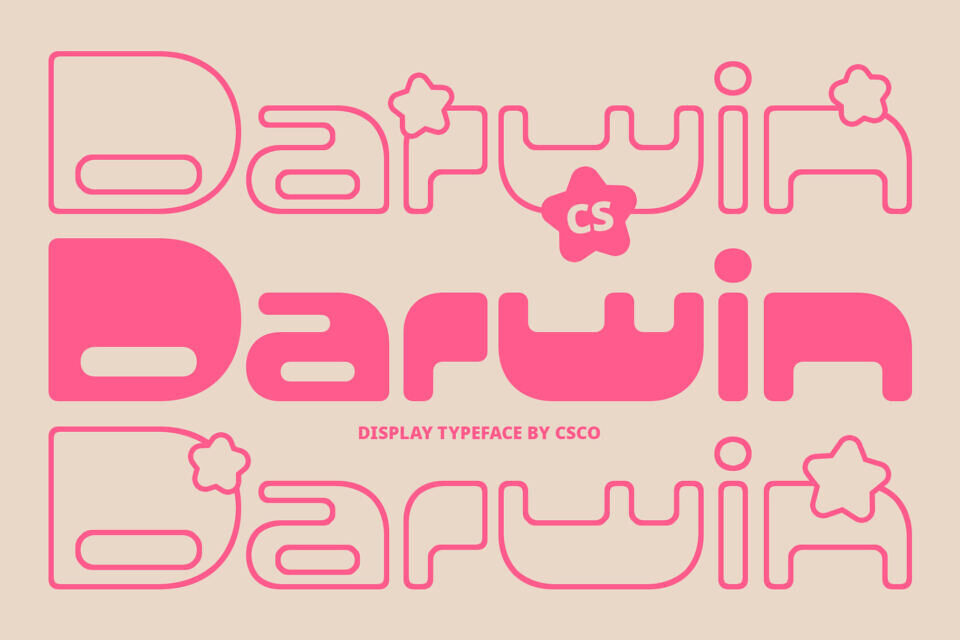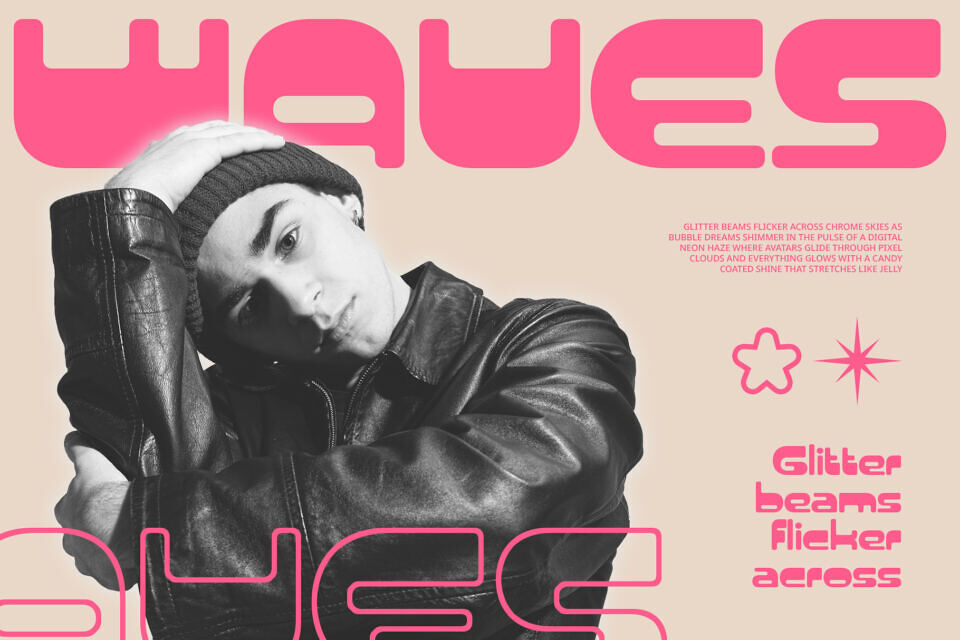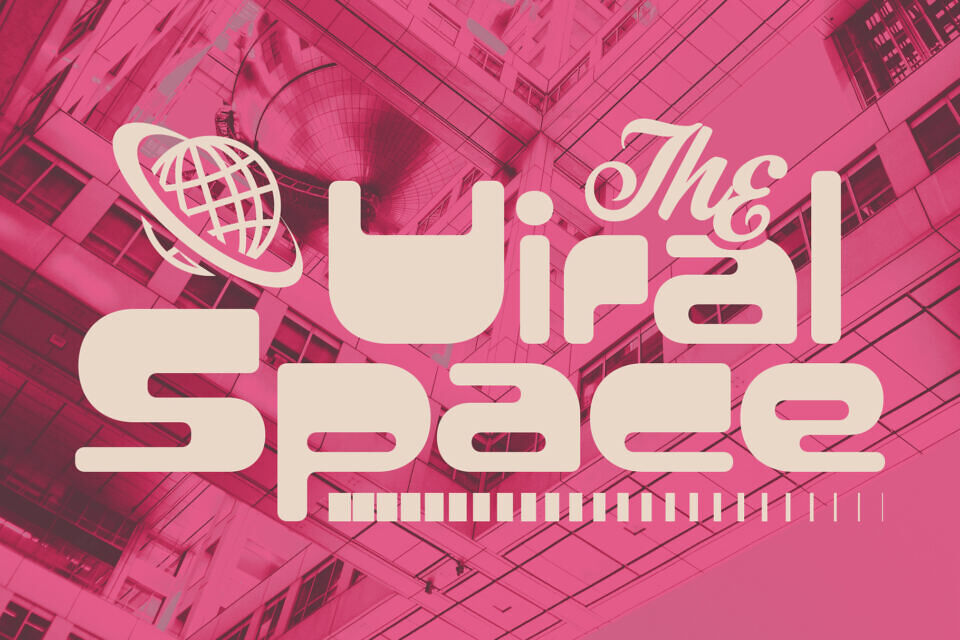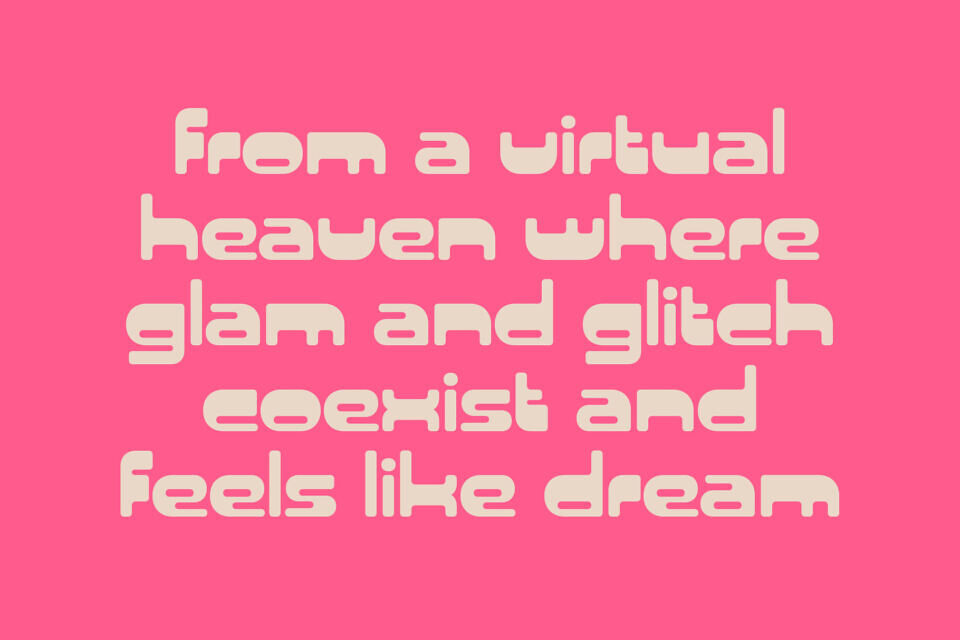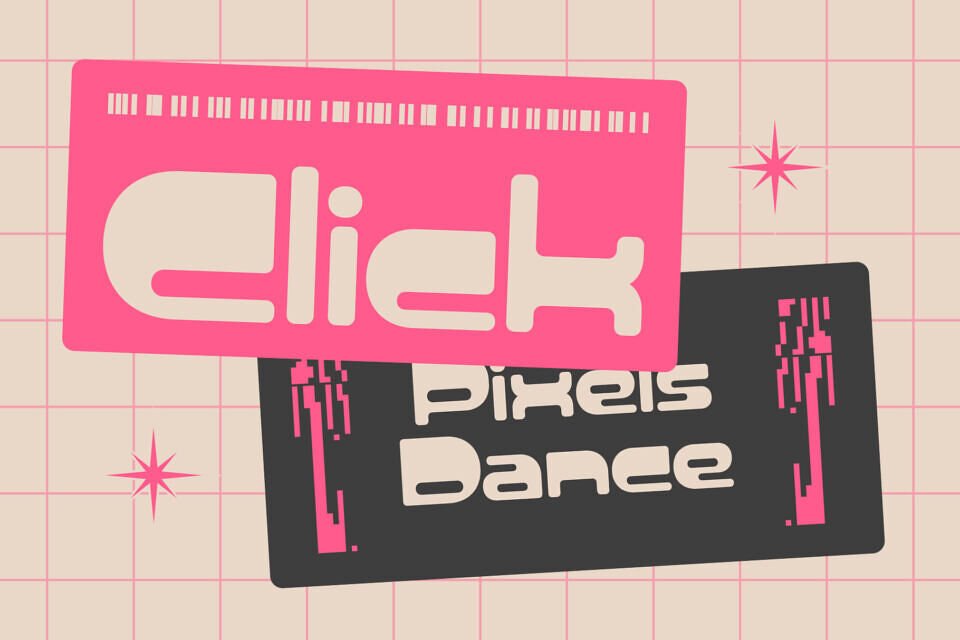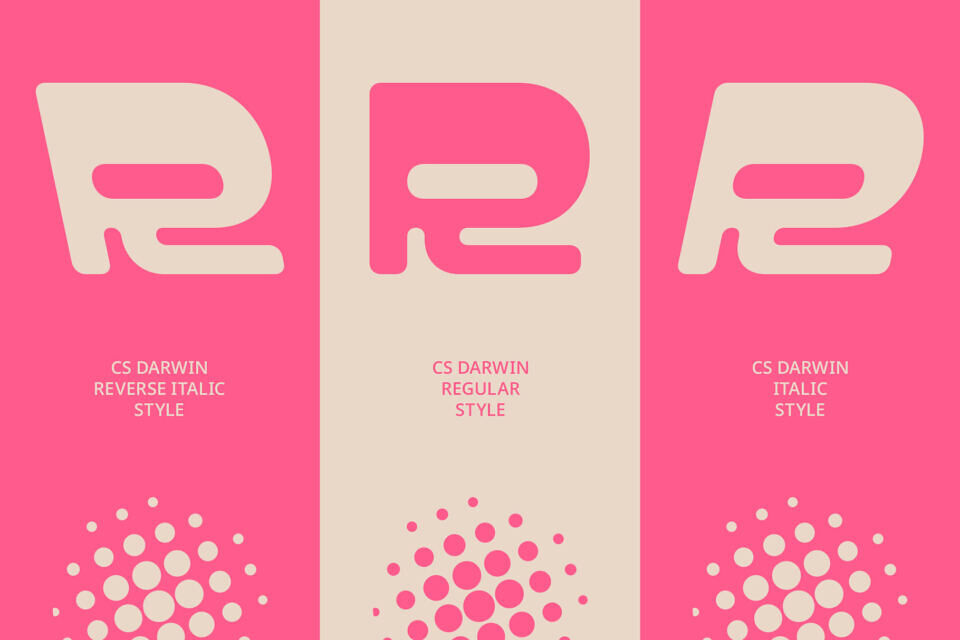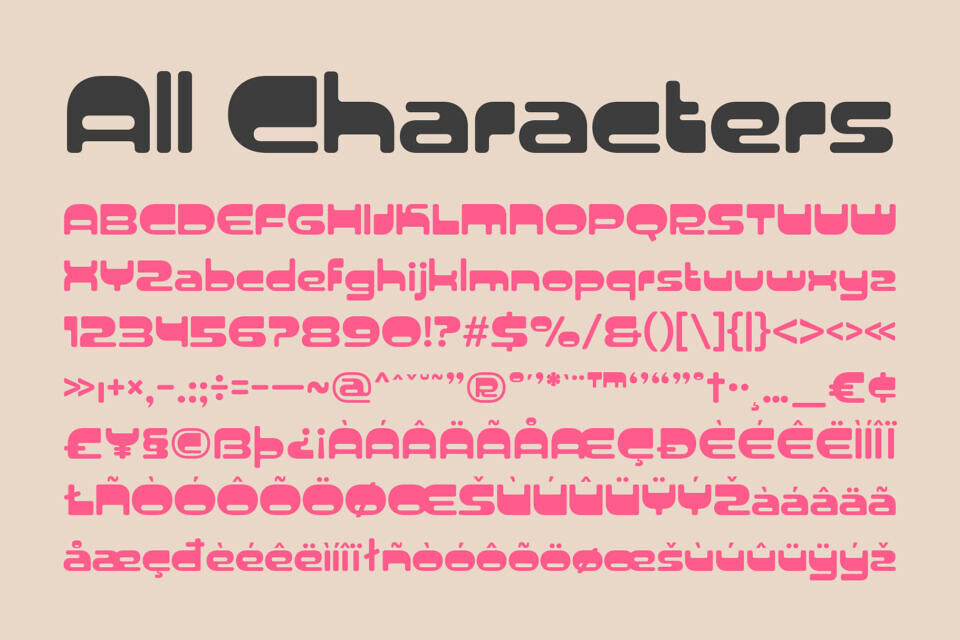
CS Darwin Font
CS Darwin font blends early 2000s digital nostalgia with sleek, futuristic flair. Its bold, glossy letterforms feature fluid curves and a polished, techno-inspired shine, evoking the playful, tech-heavy aesthetic of Y2K pop culture.
Perfect for music posters, fashion branding, album covers, or nostalgic digital art, this font delivers a confident, retro-futuristic vibe. Ideal for trendsetters and creative rebels, CS Darwin reimagines the past with modern energy, making it a standout choice for projects needing style, attitude, and Y2K-inspired cool.